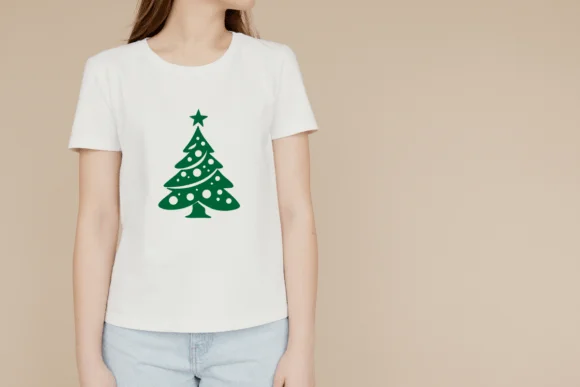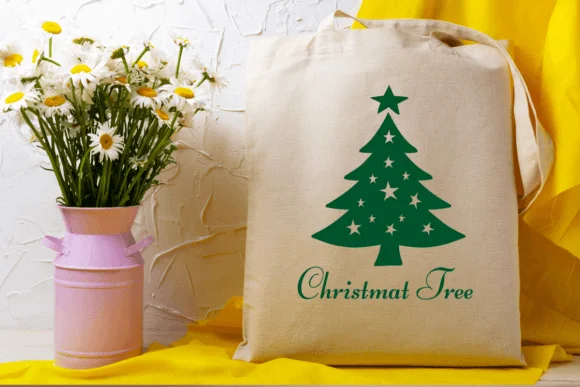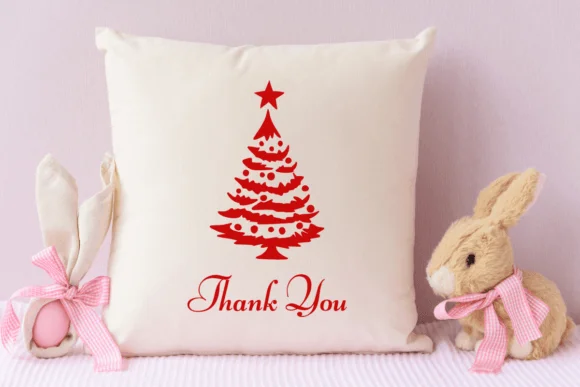
Christmas Tree Font
This evergreen font is perfect for Christmas tree farms, holiday tree lot signage, tree decorating guides, Christmas tree care instructions, forest-themed Christmas cards, evergreen holiday decorations, Christmas tree cutting celebrations, pine-scented seasonal branding, woodland Christmas parties, and natural holiday messaging materials.
Christmas Tree Font is exciting because it captures the majestic beauty and symbolic significance of the Christmas tree through its towering, triangular-inspired letterforms that mirror the iconic silhouette of evergreen trees adorned with lights and ornaments. The font features tall, tapering characters with organic textures and branch-like details that evoke the natural grandeur of pine, fir, and spruce trees that serve as the centerpiece of Christmas celebrations worldwide. Each letter showcases the layered complexity of evergreen branches with needle-inspired accents and trunk-like foundations that create the visual impression of a forest of Christmas trees spelling out festive messages. The design perfectly captures the essence of the Christmas tree as both a natural wonder and a sacred symbol of life, hope, and celebration during the darkest days of winter.
The Christmas Tree Font family includes forest-inspired variations: Regular, Bold, Light, Needle, and Trunk versions. The collection features special evergreen elements including branch accents, needle textures, pine cone details, and tree ring ornaments. Additional components include forest borders, woodland frames, evergreen decorations, and natural ornamental designs that enhance the font's Christmas tree appeal and create cohesive woodland holiday themes.
Tree farm owners and nature enthusiasts will find Christmas Tree Font to be an invaluable resource for creating authentic woodland communications that celebrate the natural beauty and traditional significance of Christmas trees. This organically inspired font transforms ordinary tree-related text into majestic expressions that honor both the environmental wonder and cultural importance of evergreen trees in Christmas traditions.
The typeface includes comprehensive character support with natural styling that maintains excellent readability while conveying the towering majesty and organic beauty of Christmas trees. The font's forest-inspired design ensures stunning results across both outdoor applications and indoor nature-themed projects.
Perfect for tree farms, nurseries, environmental organizations, and woodland Christmas celebrations, this font delivers natural visual impact that communicates growth, tradition, and the magnificent beauty of Christmas trees that transform homes into magical winter wonderlands and serve as living symbols of Christmas joy and family tradition.